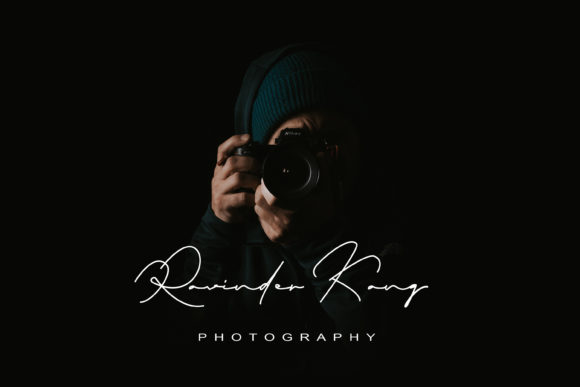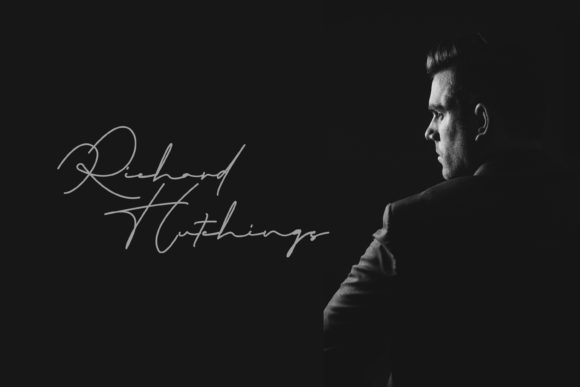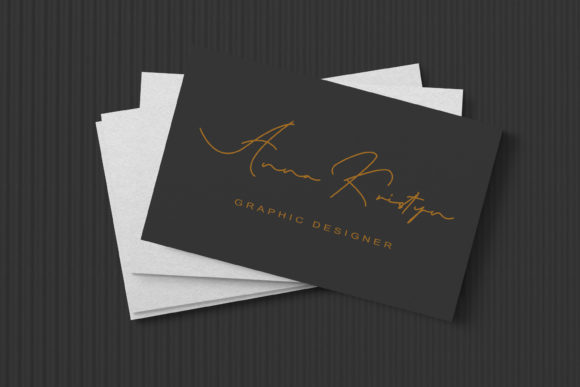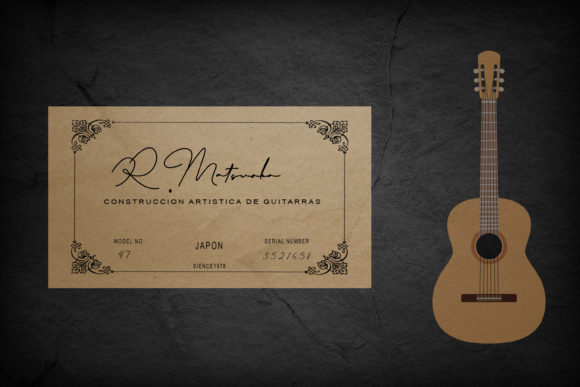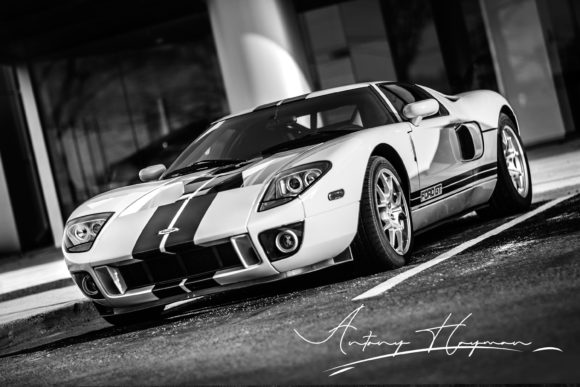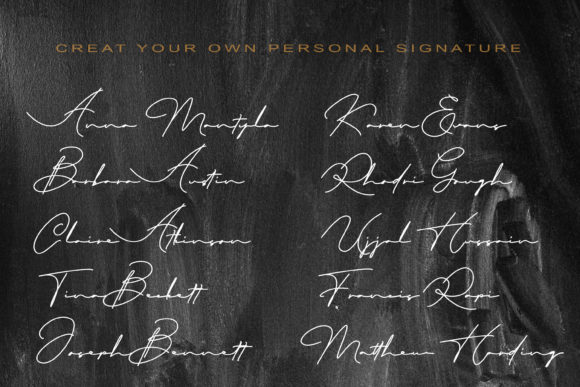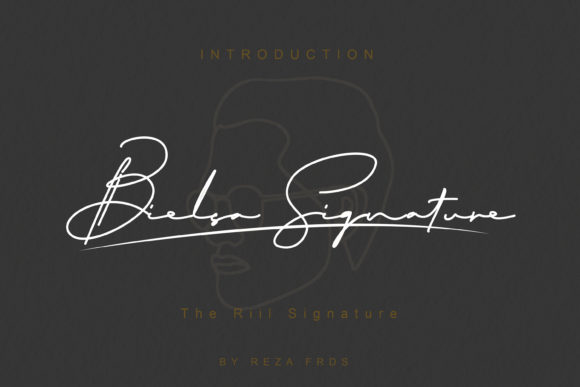
Bielsa Signature Font: Elevate Your Designs with Elegance and Sophistication
In the world of design, typography plays a crucial role in conveying the tone and personality of a brand or product. A well-crafted font can elevate a design from ordinary to extraordinary, making it a vital tool for designers and crafters. If you’re on the hunt for a font that exudes elegance, sophistication, and high-quality vibes, look no further than the Bielsa Signature Font.
What is Bielsa Signature Font?
Bielsa Signature is a stunning, free-flowing script font designed specifically for creative projects that demand a touch of luxury and refinement. This beautiful font is perfect for packaging products, invitation cards, flyers, mockups, event posters, and any other design endeavor that requires a high-end aesthetic.
Key Features of Bielsa Signature Font
- Beautiful and Balanced Character: Bielsa Signature boasts a gorgeous, well-balanced character that fits seamlessly into any design pool. Its elegant strokes and refined lines create a sense of harmony, making it perfect for designs that require a touch of sophistication.
- Free-Flowing Script: This font features a fluid, script-style design that adds a touch of whimsy and creativity to any project. Its free-flowing nature makes it ideal for designs that require a sense of movement and energy.
- High-Quality Vibes: Bielsa Signature is designed to deliver high-quality vibes, making it perfect for designs that demand a premium aesthetic. Whether you’re working on a luxury brand or a high-end product, this font is sure to impress.
- Versatile: This font is incredibly versatile, making it suitable for a wide range of design applications. From packaging products to event posters, Bielsa Signature is the perfect choice for any project that requires a touch of elegance.
Why Choose Bielsa Signature Font?
With so many fonts available, why choose Bielsa Signature? Here are just a few reasons why this font stands out from the rest:
- Unique and Distinctive: Bielsa Signature has a unique and distinctive style that sets it apart from other fonts. Its elegant, cursive design makes it perfect for designs that require a touch of personality and flair.
- Elegant and Sophisticated: This font exudes elegance and sophistication, making it perfect for high-end designs that demand a premium aesthetic.
- Easy to Read: Despite its elegant design, Bielsa Signature is incredibly easy to read, making it perfect for designs that require a clear and concise message.
How to Use Bielsa Signature Font
Using Bielsa Signature Font is incredibly easy. Here are just a few ways you can incorporate this beautiful font into your designs:
- Packaging Products: Add a touch of luxury to your product packaging with Bielsa Signature. This font is perfect for labels, tags, and other packaging materials.
- Invitation Cards: Create stunning invitation cards with Bielsa Signature. This font is perfect for weddings, parties, and other special events.
- Flyers and Brochures: Add a touch of elegance to your flyers and brochures with Bielsa Signature. This font is perfect for promoting products, services, or events.
- Mockups: Use Bielsa Signature to create stunning mockups for your designs. This font is perfect for showcasing your work in a professional and elegant way.
- Event Posters: Create eye-catching event posters with Bielsa Signature. This font is perfect for concerts, festivals, and other events that require a touch of sophistication.
| Font Name | Bielsa Signature Font |
| Author | Reza’Frds |
In conclusion, Bielsa Signature Font is a stunning, free-flowing script font that’s perfect for designers and crafters who demand high-quality vibes. With its beautiful and balanced character, elegant design, and versatility, this font is sure to elevate your designs to the next level. Whether you’re working on a luxury brand, a high-end product, or a special event, Bielsa Signature is the perfect choice. So why wait? Download Bielsa Signature Font today and start creating stunning designs that exude elegance and sophistication.